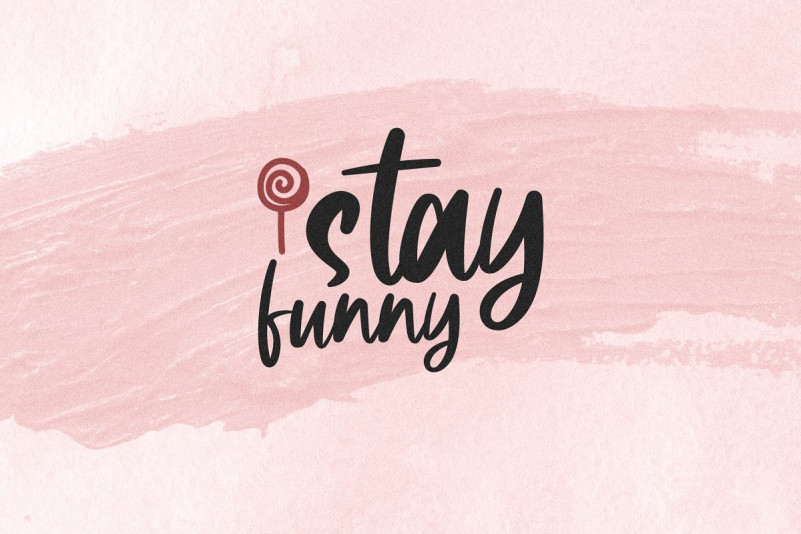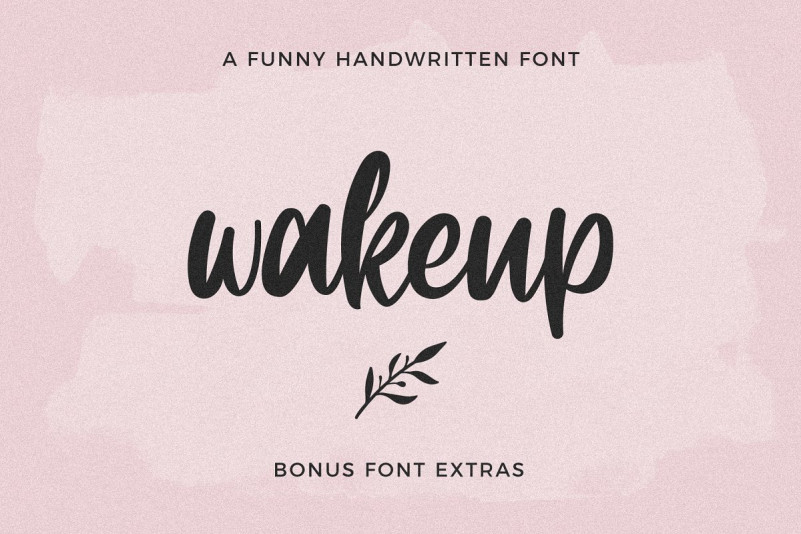
Wakeup Script Font
Wakeup Font – This is a beautiful script inspired by handlettering works. It’s will give your design works more stylish and artistic. Wakeup designed and shared by 24Design Studios. Wakeup is a unique thick script font that has funny and feminine properties. This font is perfect for businesses that are close to women such as weddings, invitations, book titles, label designs, and more.:)